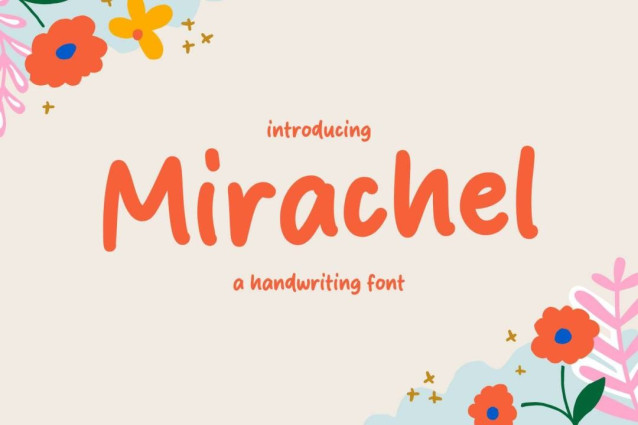
Mirachel Font
Mirachel Font is a simple and friendly handwritten font. Its natural and unique style makes it incredibly fitting to a large pool of designs. The only limit is your imagination!